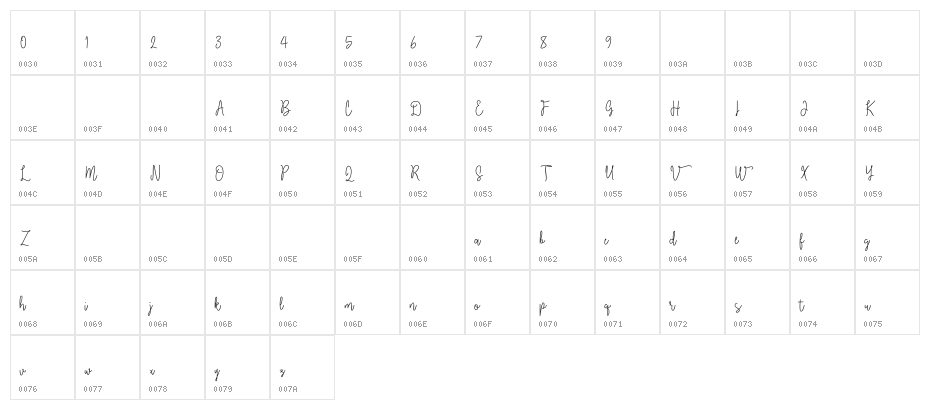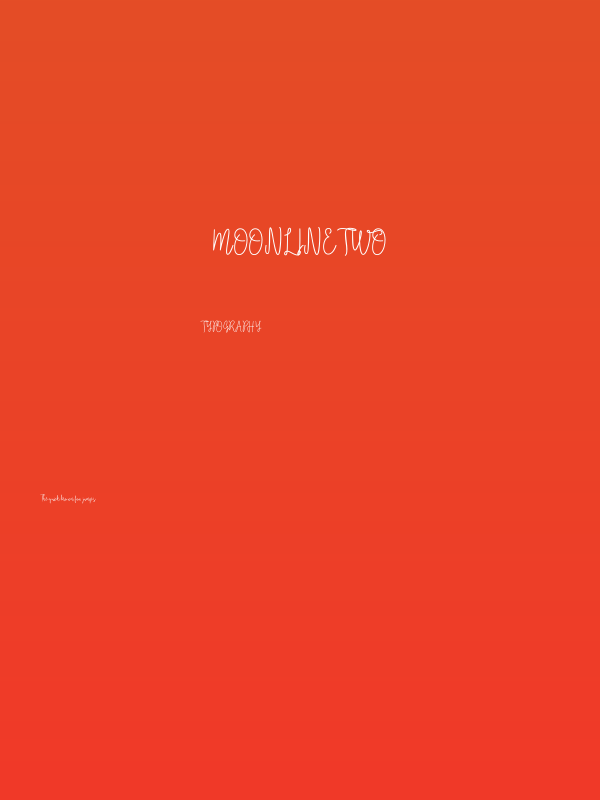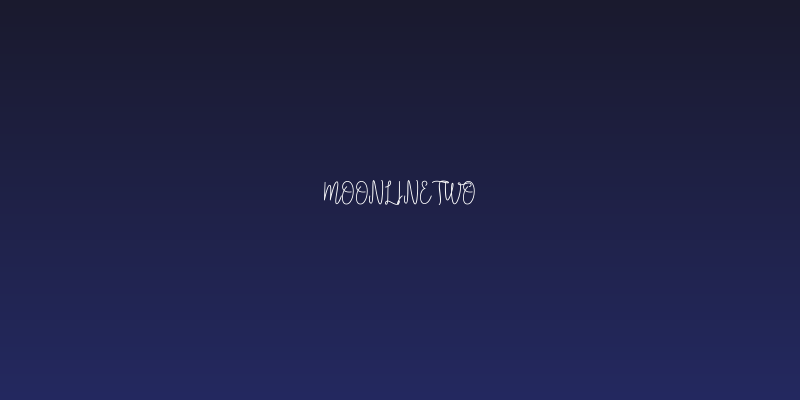
Moonlinetwo Font
Moonlinetwo Description
This font features a whimsical and flowing script style, characterized by its elegant, handwritten appearance. The letters are interconnected with smooth, fluid strokes, giving it a natural and organic feel. The uppercase letters are slightly more elaborate, with decorative loops and swirls, while the lowercase letters maintain a consistent, cursive flow. The numerals are designed to match the overall aesthetic, with a playful yet sophisticated touch. The special characters integrate seamlessly, maintaining the font's cohesive style. This font is perfect for projects that require a personal, artistic touch, such as invitations, greeting cards, or branding materials.
| Proposed Projects | Ideal for wedding invitations, greeting cards, personal branding, and artistic projects. |